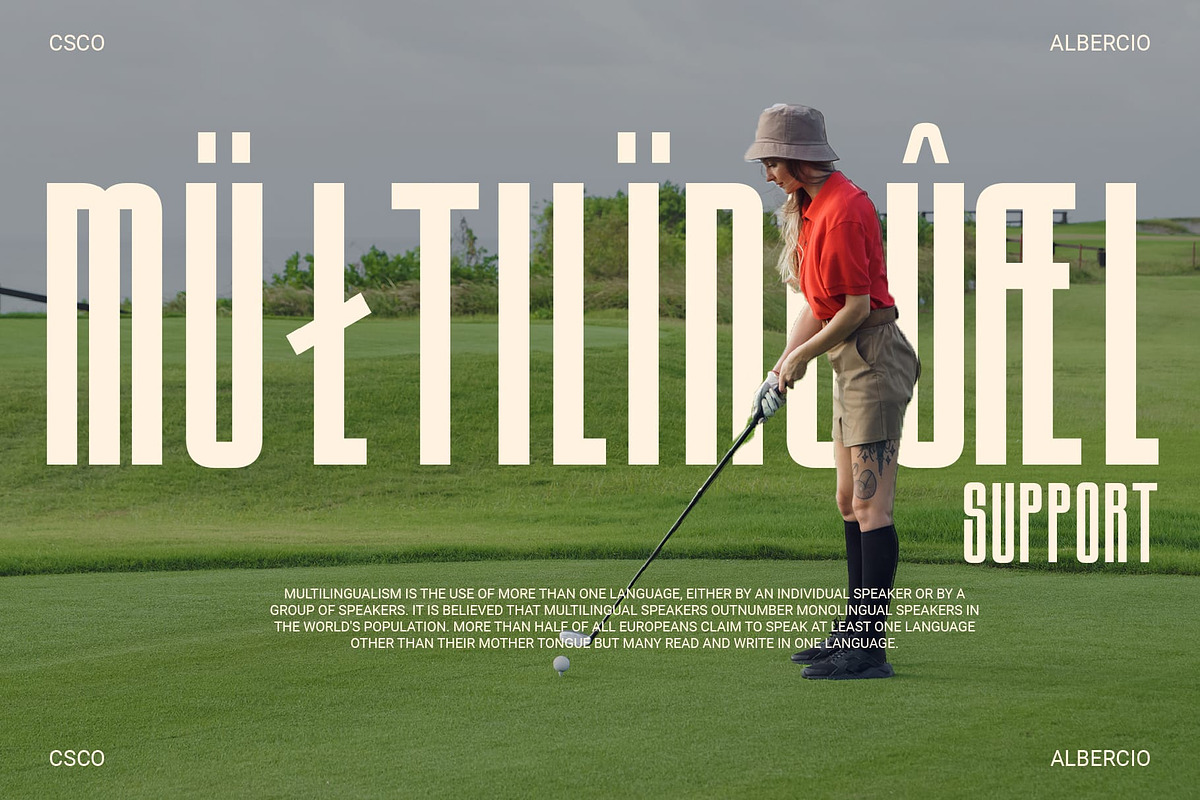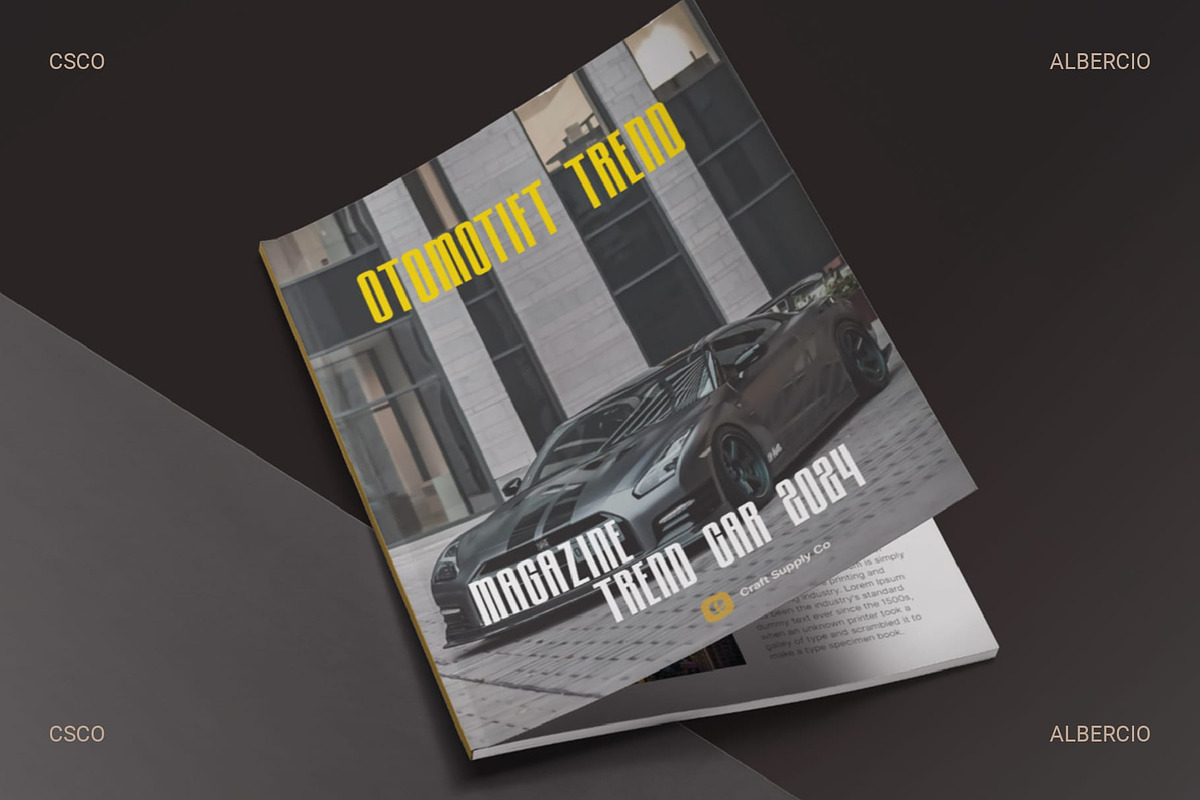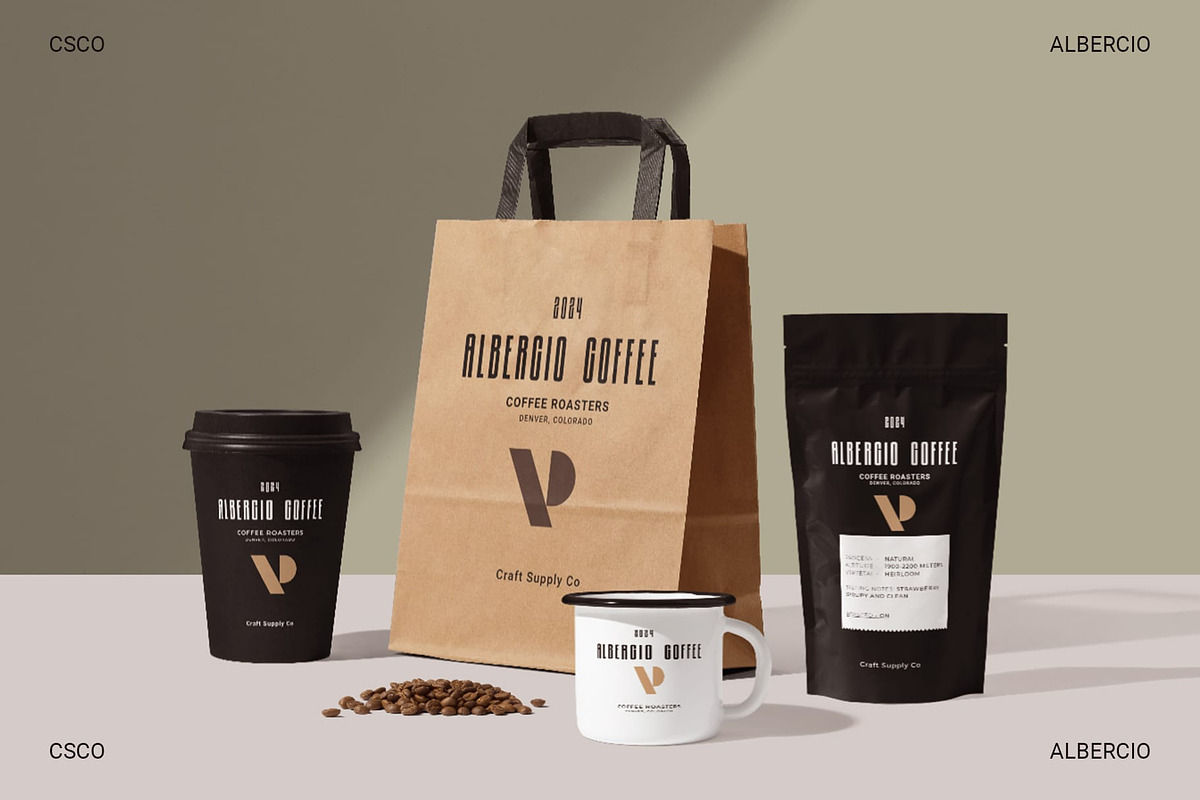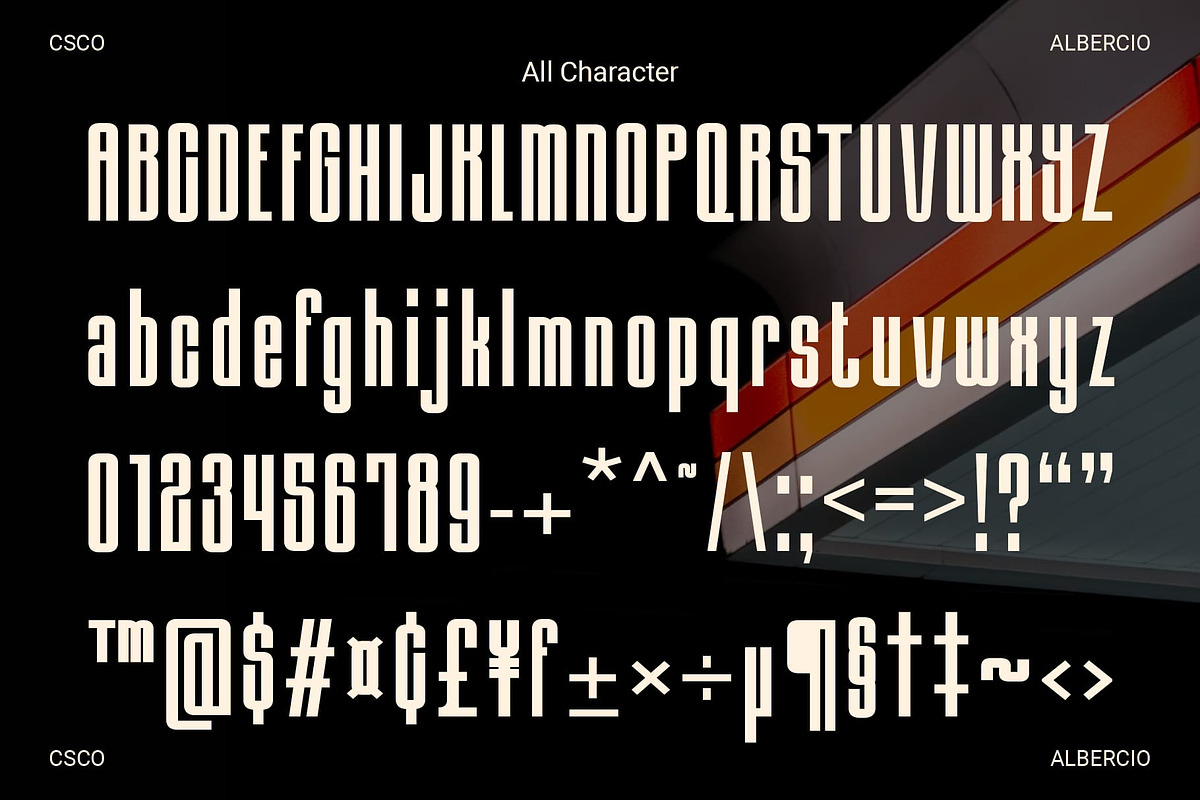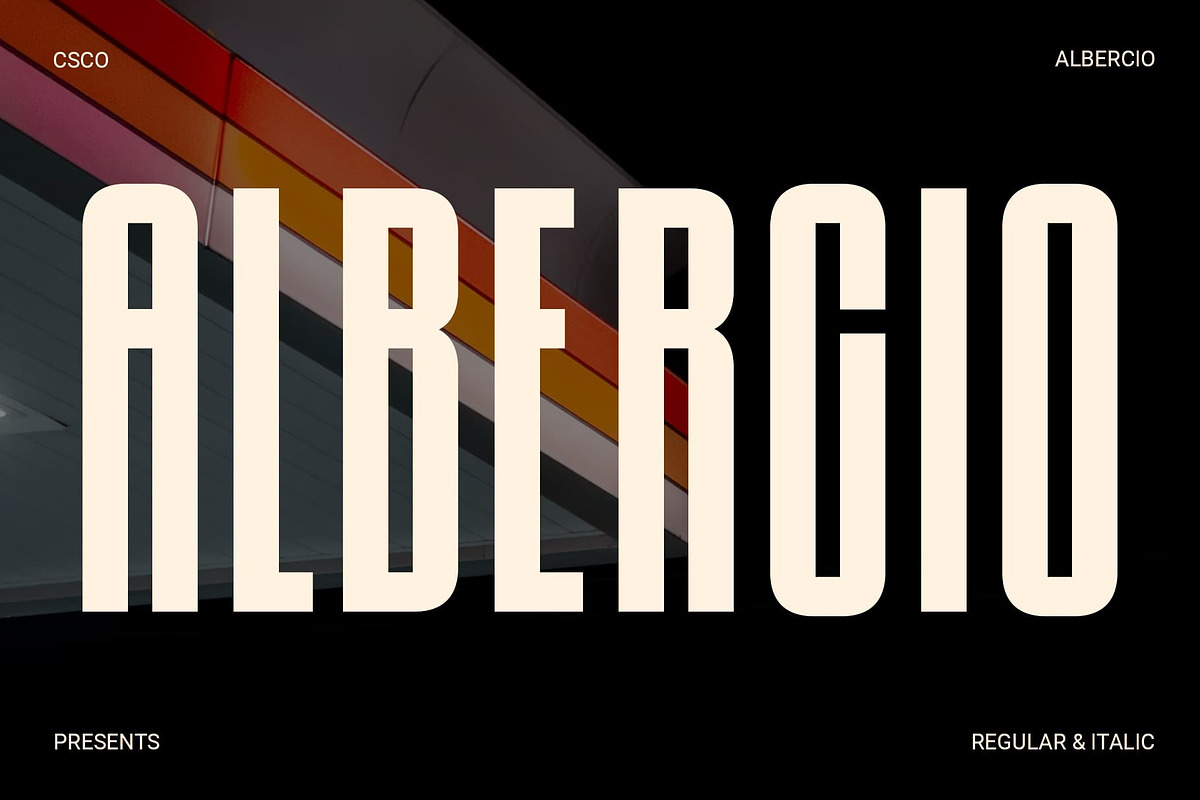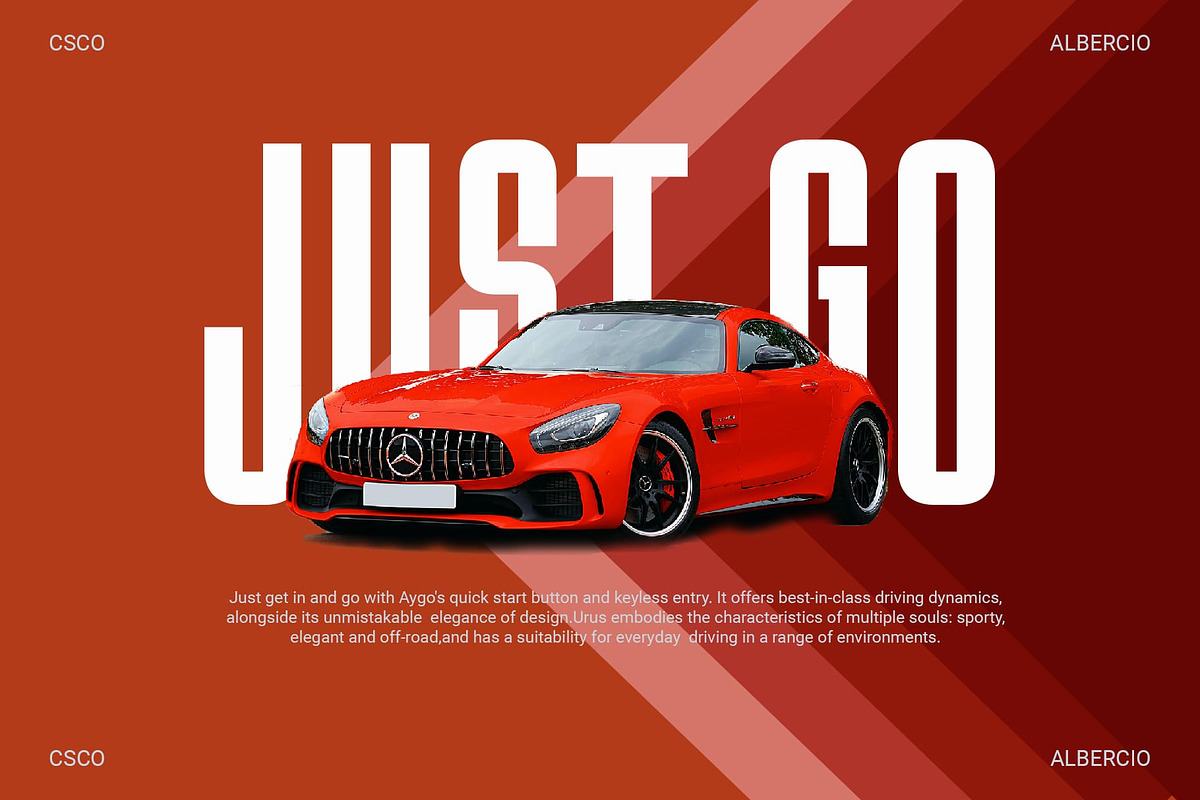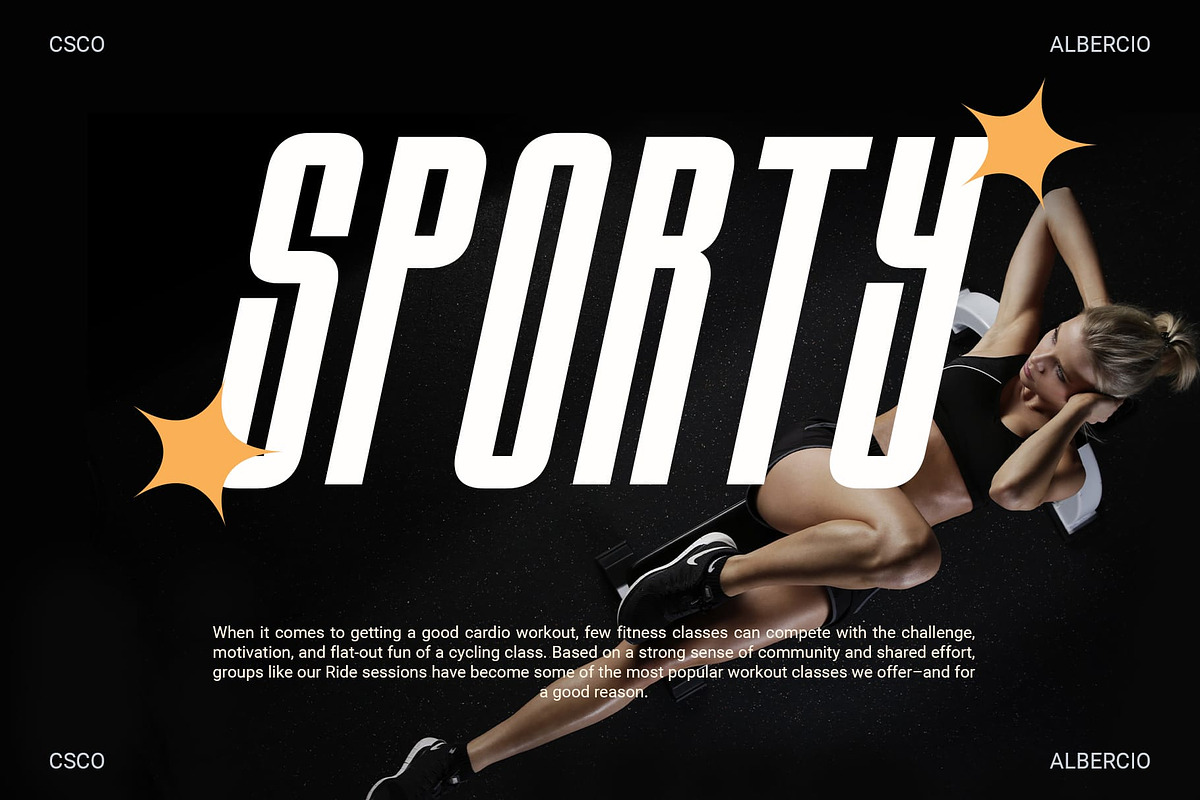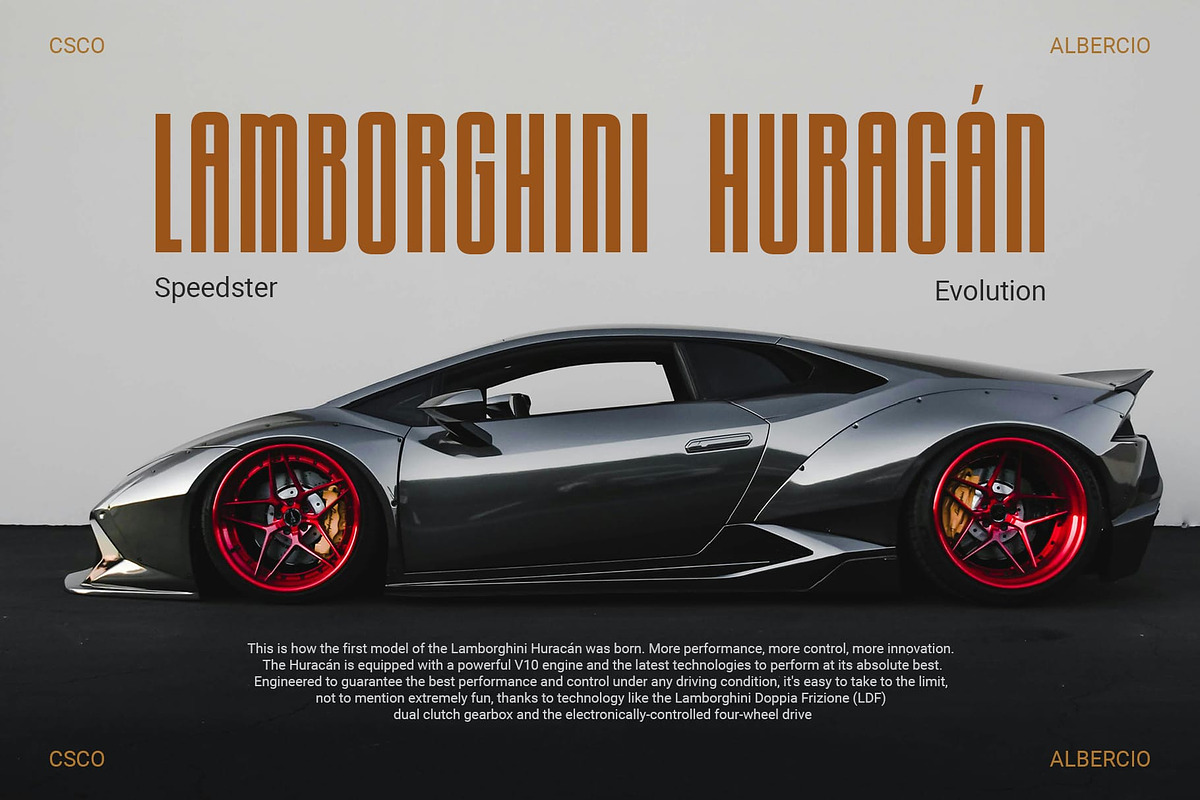
Albercio – Condensed Sans
Albercio: A Captivating Display Font
Striking Compactness Albercio, a condensed sans serif, marries sleekness with impact, ensuring eye-catching visuals that demand attention. Its distinctive narrow form brings a unique compactness, making it stand out in a crowd of fonts. This font is a testament to the principle that less space doesn’t mean compromising on visibility.
Versatility in Design Crafted for display purposes, Albercio thrives in various design realms, from posters to headlines, delivering a punchy and memorable presence. Its adaptability allows designers to experiment with different styles while maintaining a cohesive and professional aesthetic.
Effortless Elegance Despite its condensed form, Albercio exudes elegance, maintaining readability while making a bold statement in any typographic composition. The subtle curves and balanced proportions contribute to its refined appearance, ensuring that it not only captures attention but also retains a sense of sophistication.
Distinctive Impact In the realm of fonts, Albercio stands out with its condensed charm, leaving a lasting impression on the viewer, enhancing the visual hierarchy. Whether used for branding or editorial purposes, it provides a distinctive impact that sets a brand or publication apart.
Conclusion Albercio is more than a font; it’s a design asset. Its condensed form amplifies visual impact, making it an ideal choice for designers seeking a captivating and versatile display typeface. Elevate your designs with Albercio’s striking compactness and effortless elegance, making every visual project memorable and impactful.
Features : Uppercase and lowercase characters Numerals and Punctuation (OpenType Standard) Accents (Supports Multilingual Characters) PUA Encoding You can use this typeface without needing any specialized software.